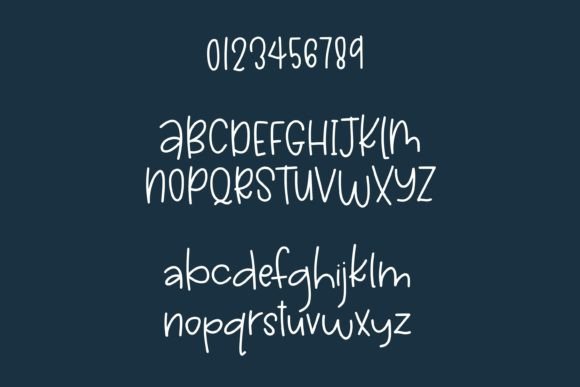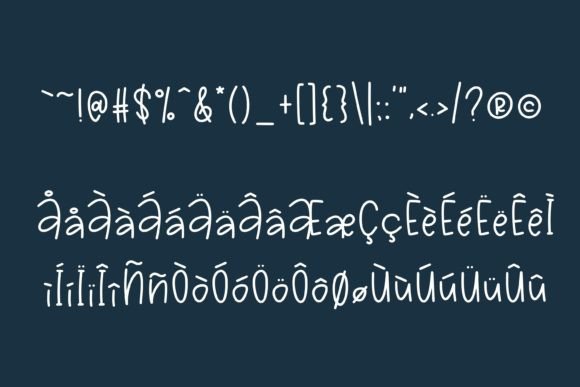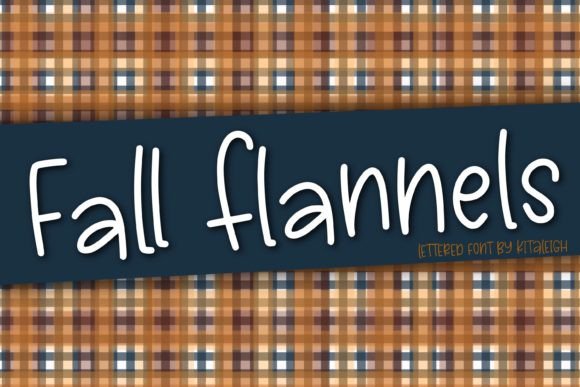
Cozy Up with Fall Flannels Font: The Perfect Addition to Your Autumnal Designs
As the leaves change colors and the air grows crisper, designers and crafters alike are on the lookout for the perfect typography to capture the essence of fall. Look no further than the Fall Flannels Font, a cozy, handwritten font that brings the warmth of autumn to your projects. With its charming, homey vibe and touch of rustic comfort, this font is ideal for adding a seasonal, creative flair to any design.
The Perfect Font for Fall Invitations and Decor
Fall Flannels Font is specifically designed to evoke the feeling of snuggling up with a warm cup of apple cider on a chilly autumn evening. Its handwritten charm and rustic undertones make it perfect for invitations, labels, and fall decor. Whether you’re designing a seasonal greeting card, a harvest-themed party invitation, or a cozy fall-themed blog post, this font is sure to add a touch of warmth and personality to your project.
Key Features of Fall Flannels Font
- Cozy, handwritten design: Fall Flannels Font features a charming, handwritten design that’s perfect for adding a personal touch to your projects.
- Rustic undertones: The font’s rustic undertones evoke the feeling of fall leaves, cozy sweaters, and warm cups of cider.
- Perfect for seasonal designs: Whether you’re designing for fall, harvest, or Thanksgiving, Fall Flannels Font is the perfect choice.
- Versatile: This font can be used for a wide range of design projects, from invitations and labels to blog posts and social media graphics.
How to Use Fall Flannels Font in Your Designs
Fall Flannels Font is easy to use and can be incorporated into a wide range of design projects. Here are a few ideas to get you started:
- Fall invitations: Use Fall Flannels Font to create cozy, inviting fall party invitations that set the tone for a warm and welcoming celebration.
- Harvest-themed labels: Add a touch of rustic charm to your harvest-themed labels with Fall Flannels Font.
- Fall blog posts: Use Fall Flannels Font to add a seasonal touch to your fall blog posts and social media graphics.
- DIY projects: Incorporate Fall Flannels Font into your DIY projects, such as handmade cards, gift tags, and other paper crafts.
Tips for Pairing Fall Flannels Font with Other Design Elements
To get the most out of Fall Flannels Font, try pairing it with other design elements that evoke the feeling of fall. Here are a few tips:
- Use warm colors: Pair Fall Flannels Font with warm, autumnal colors like orange, yellow, and red to create a cozy and inviting design.
- Add natural textures: Incorporate natural textures like leaves, twigs, and pumpkins into your design to add depth and interest.
- Keep it simple: Don’t be afraid to keep your design simple and clean. Fall Flannels Font is perfect for creating a focal point in your design.
| Font Name | Fall Flannels Font |
| Author | kitaleigh |
Fall Flannels Font is the perfect addition to any autumnal design project. With its cozy, handwritten charm and rustic undertones, it’s ideal for adding a seasonal, creative flair to invitations, labels, blog posts, and more. Whether you’re a designer, crafter, or DIY enthusiast, Fall Flannels Font is sure to become a go-to font in your design arsenal.